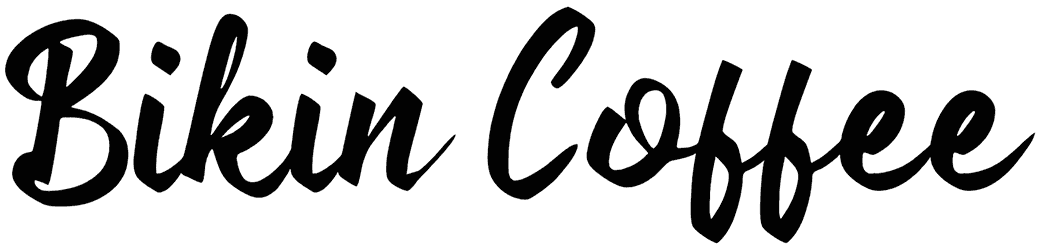
b Bikin Coffee Font
When you are stranded for a suitable font to design blog posts, magazines, product packaging, or book covers, suddenly a magical script font, the same as b Bikin Coffee, comes from nowhere and widens your selection range…
When you are stranded for a suitable font to design blog posts, magazines, product packaging, or book covers, suddenly a magical script font, the same as b Bikin Coffee, comes from nowhere and widens your selection range.